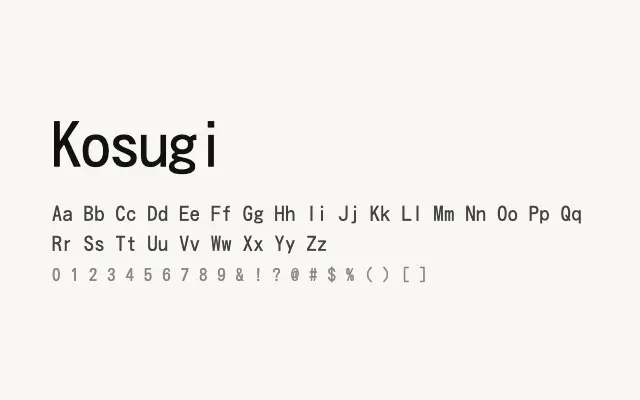
A no-nonsense Japanese gothic sans designed for functional multilingual text rendering across digital interfaces.
Kosugi is a practical, workmanlike typeface covering Japanese, Cyrillic, and Latin scripts without aesthetic pretension. Its even stroke weight and open forms prioritise legibility at small sizes on screen, making it a sensible choice for UI, body text, and localised web applications. It lacks personality but compensates with broad utility.
A clean, neutral Japanese gothic sans-serif designed for screen readability across CJK and Latin scripts. The letterforms are simple and utilitarian with minimal stylistic embellishment.